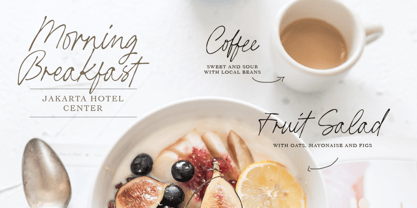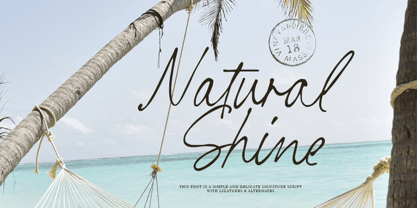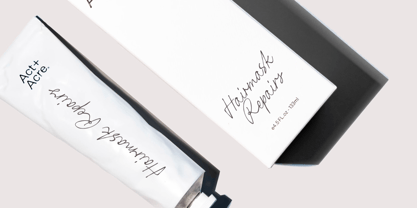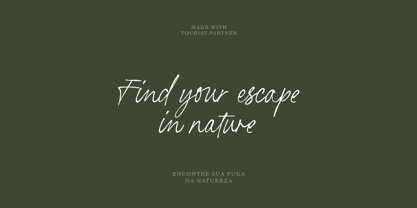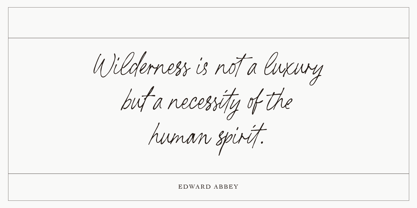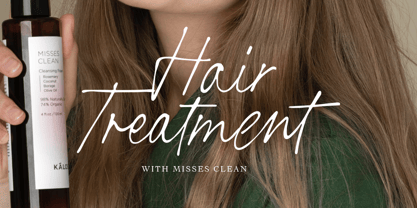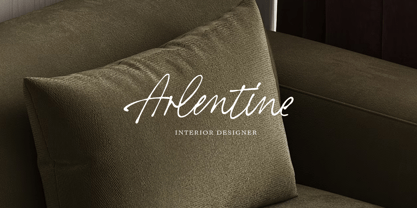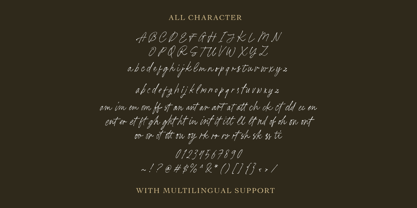
Tourist Partner
by Letterhend
The Tourist Partner Font Family was designed by Hendry Juanda and published by Letterhend. Tourist Partner contains 1 styles. More about this family
Tourist Partner is a refined and delicate signature script font designed for elegance and sophistication. With its natural handwritten flow, smooth curves, and stylish ligatures, this font captures an effortless, modern aesthetic. Perfect for branding, wedding invitations, logos, fashion, and editorial projects, it adds a touch of class to any design. The built-in alternates and ligatures allow for customization, making your typography look truly unique and personal.
Features :
• Uppercase & lowercase
• Numbers and punctuation
• Alternates Character
• Multilingual support
Designers: Hendry Juanda
Foundry: Letterhend